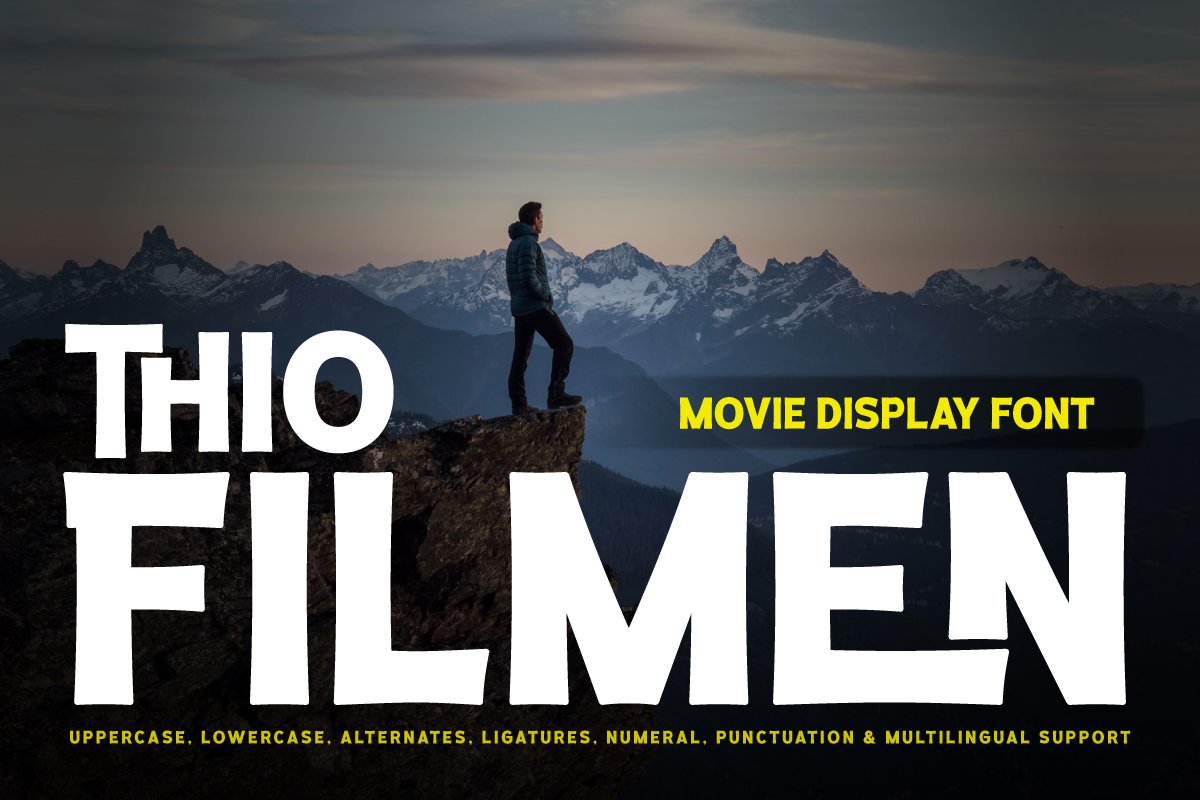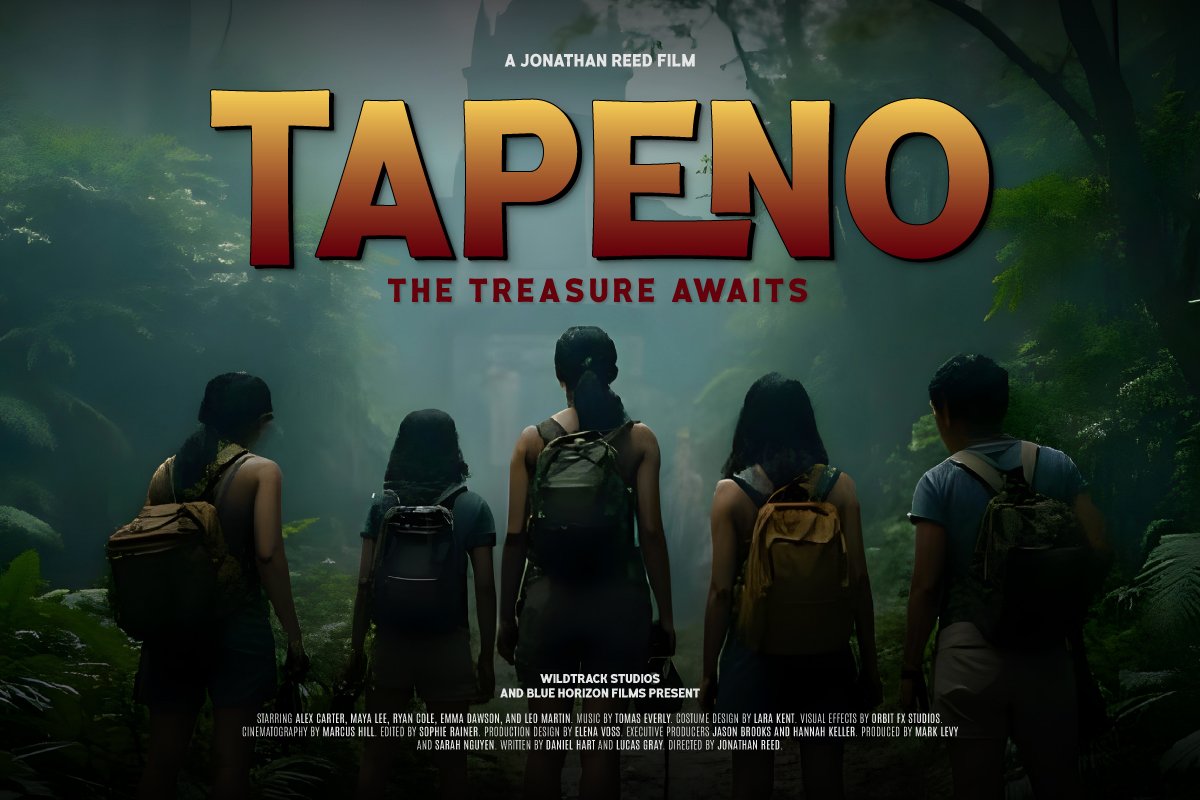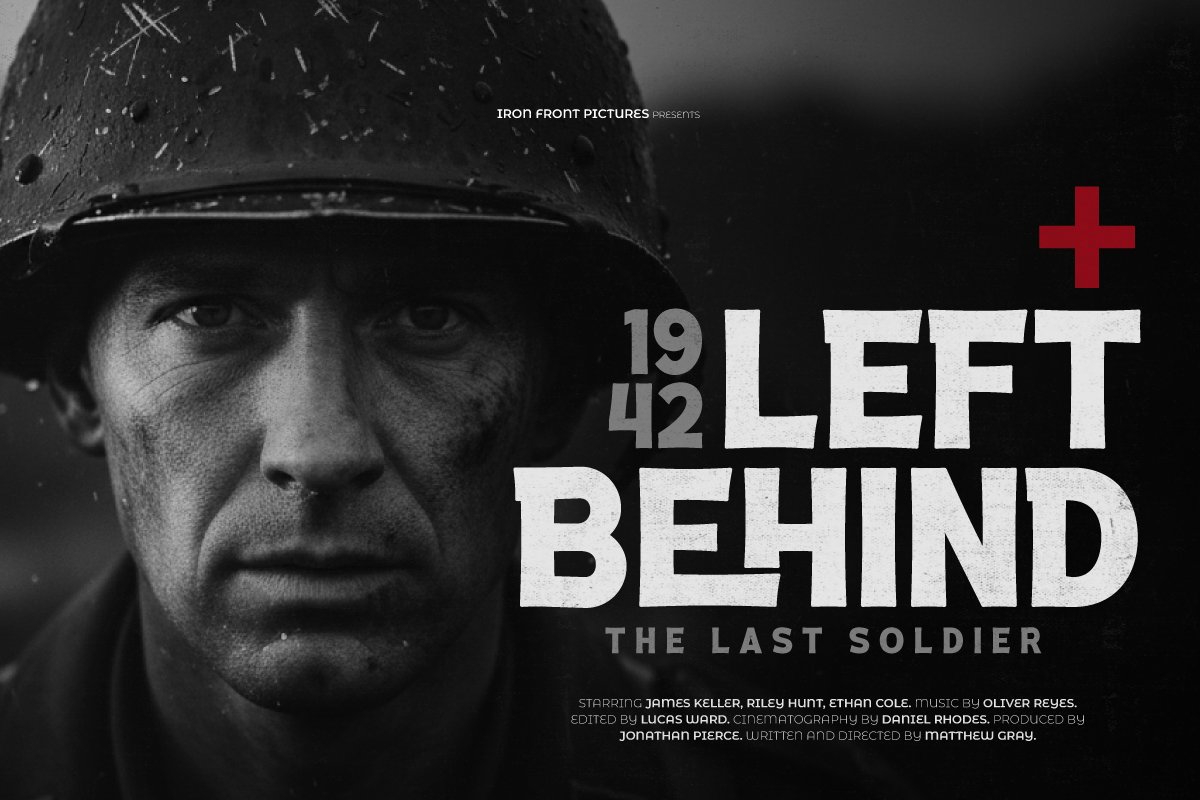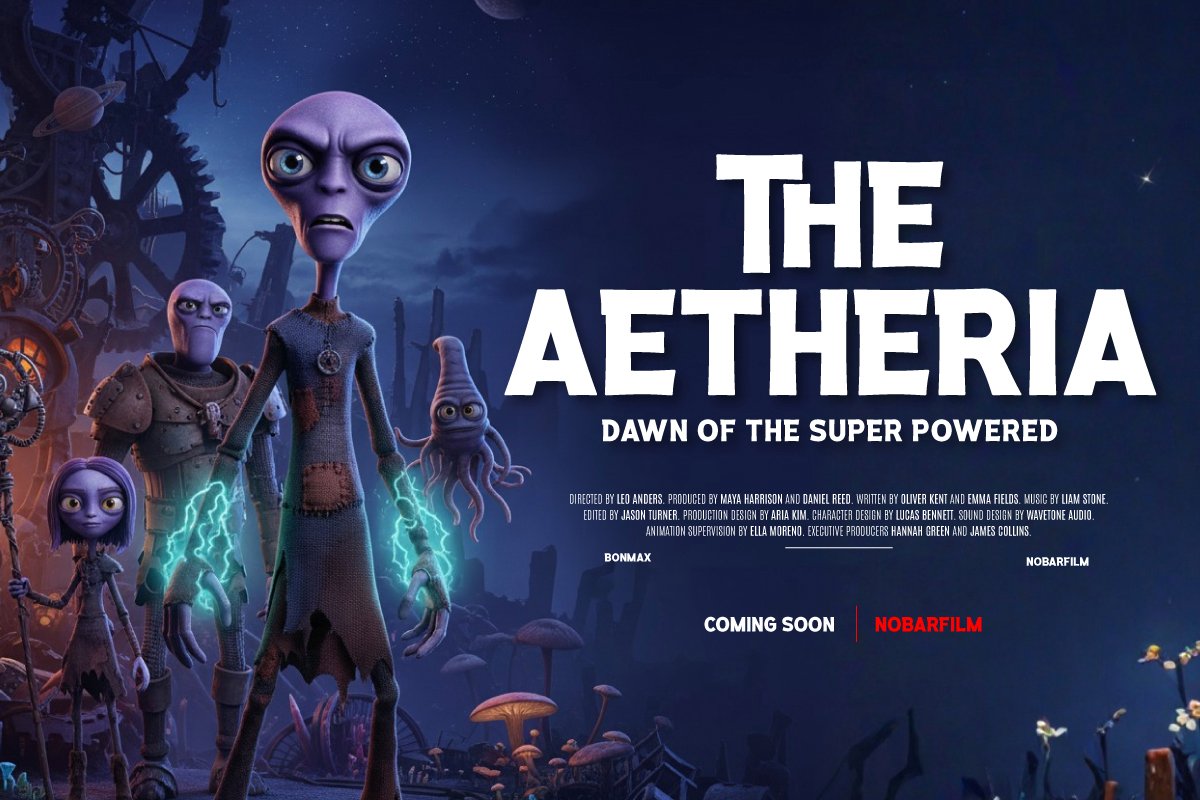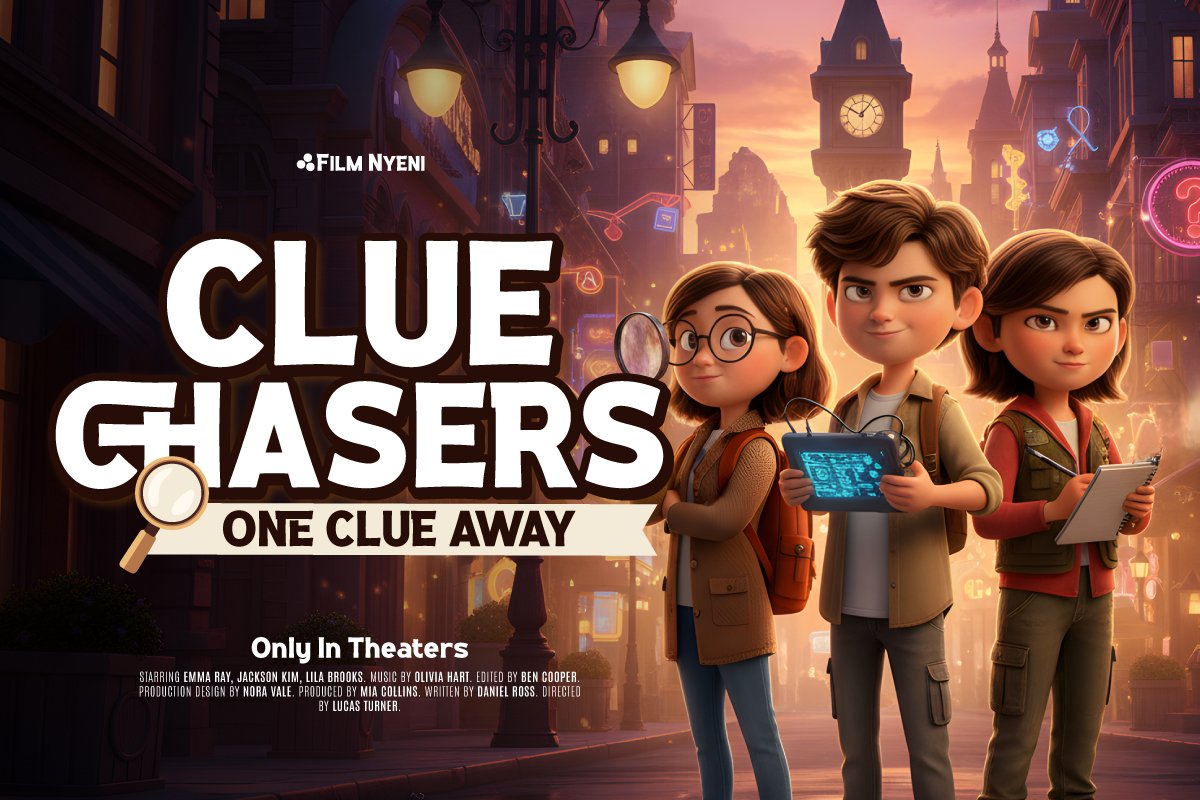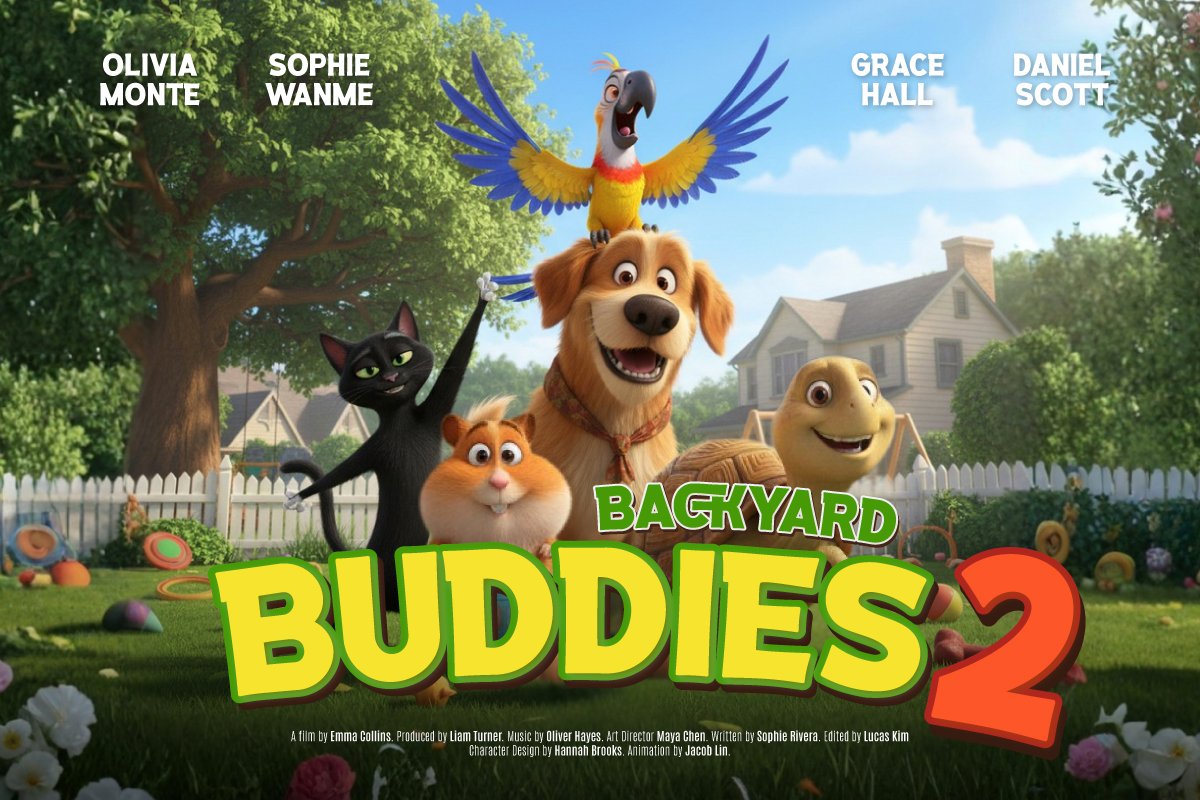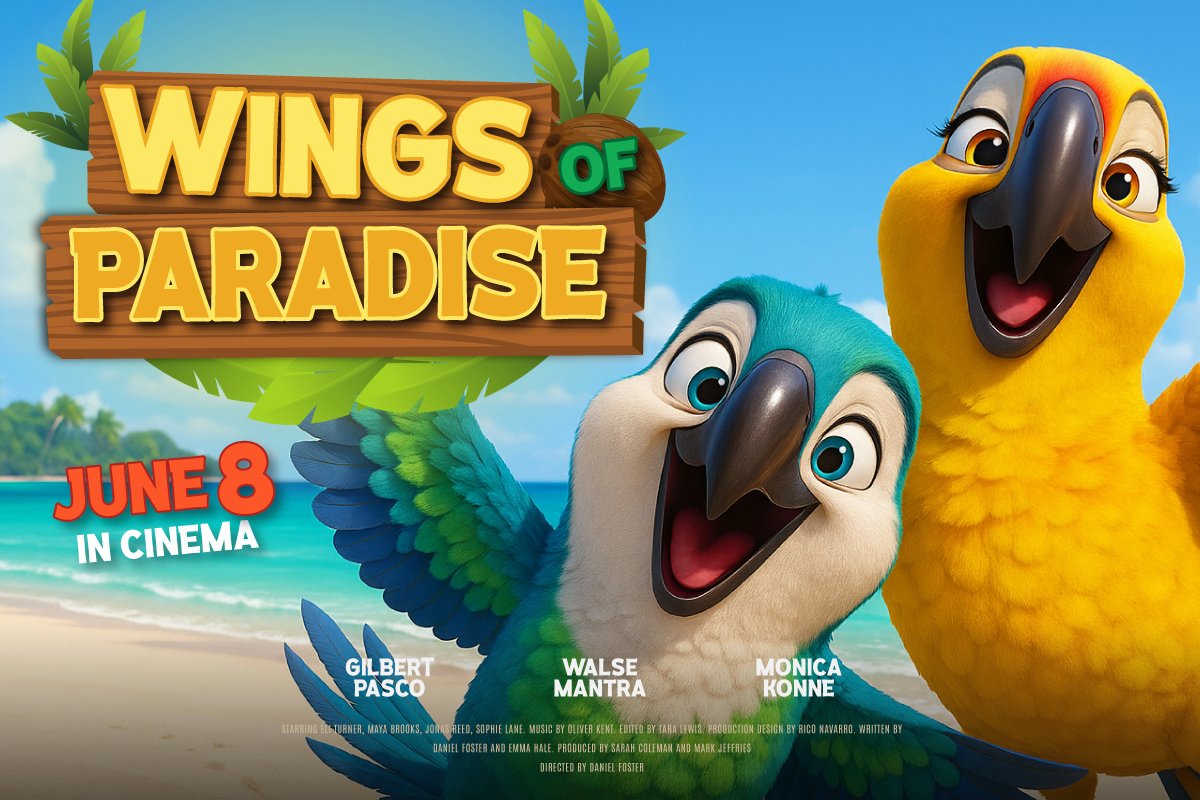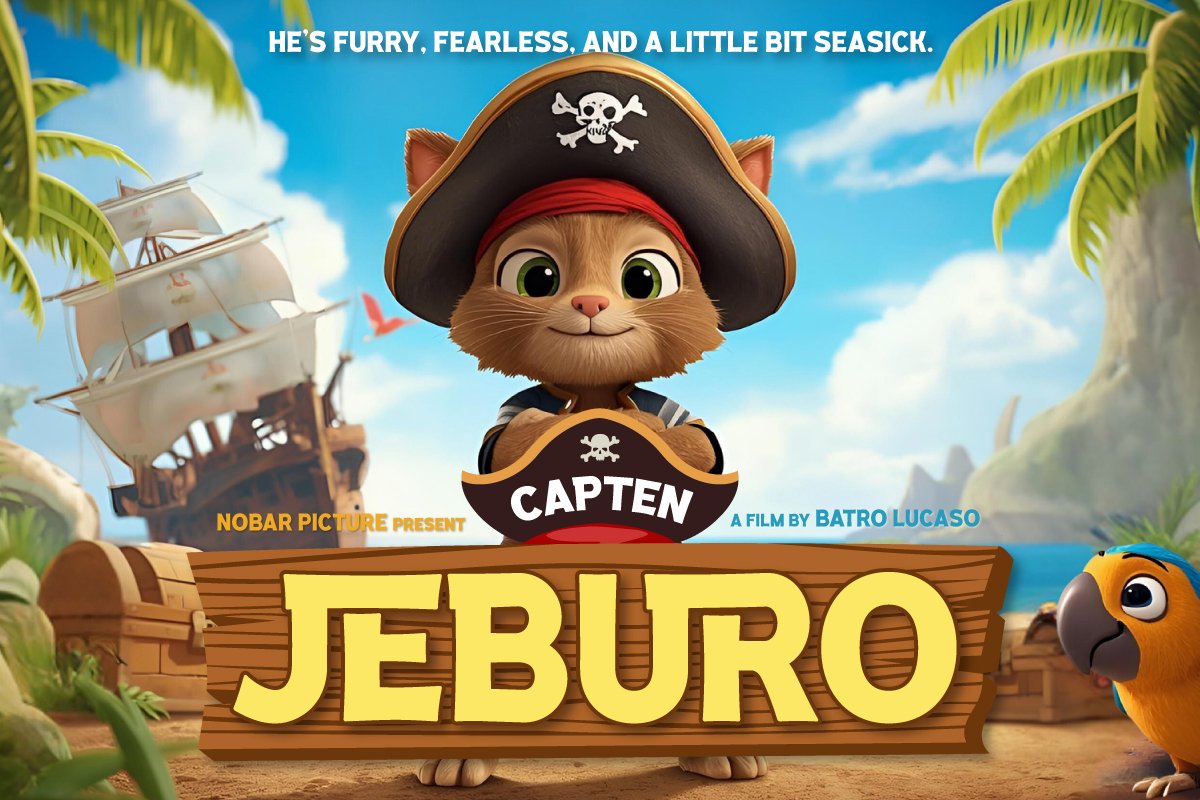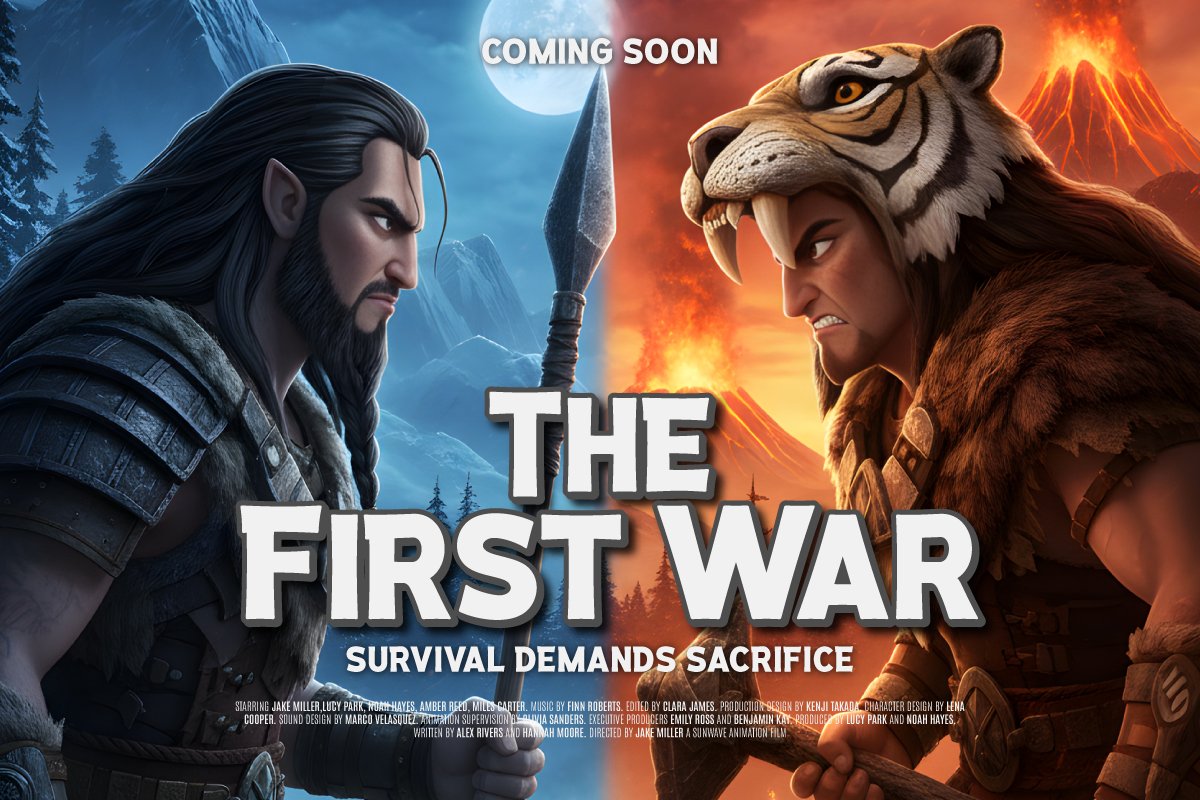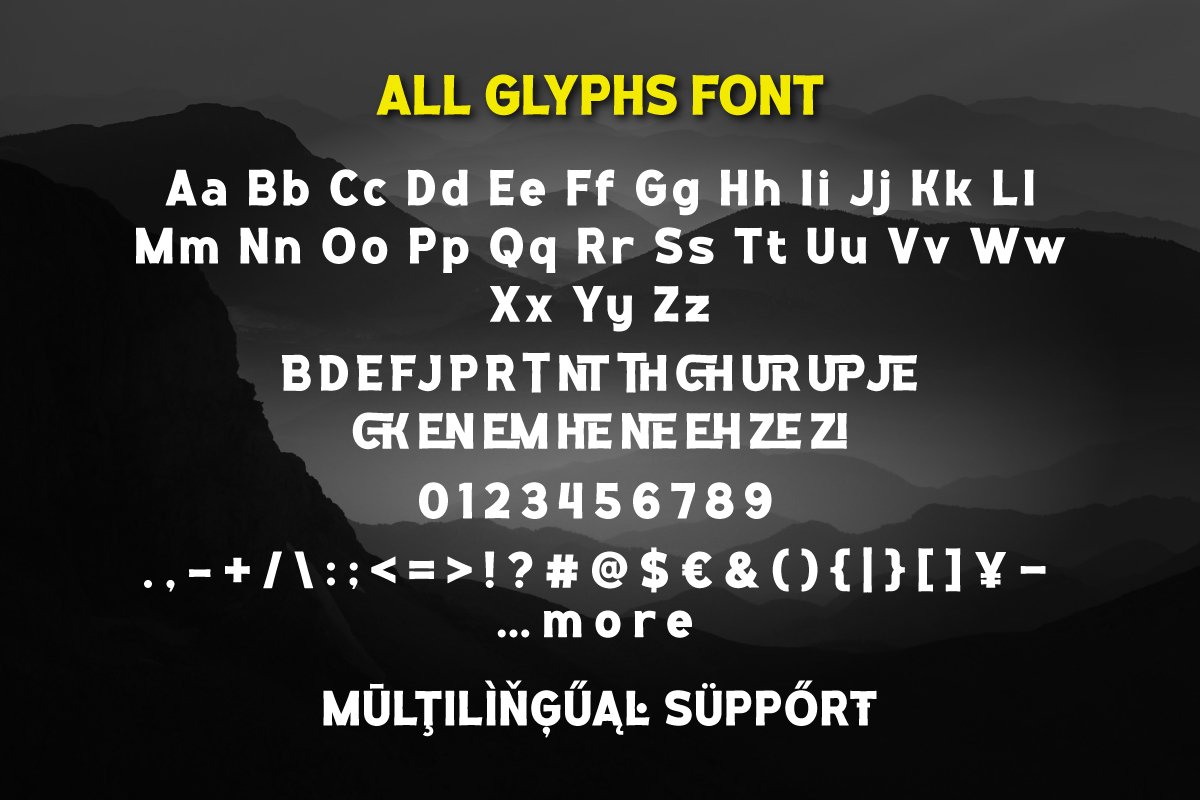
Thio Filmen – Movie Display
Thio Filmen – Movie Display brings bold cinematic energy inspired by the world of modern movie posters and action film titles. Each letter is crafted to project drama and strength thick, expressive, and designed to capture attention instantly. Perfect for movie posters, studio logos, and entertainment branding that demands a heroic and high-energy look.
With alternates, ligatures, and multilingual support, Thio Filmen offers flexibility for diverse creative projects. Its modern yet slightly cartoonish style adds a touch of fun while keeping a professional edge.
Created for designers who want to showcase a cinematic identity, Thio Filmen brings grandeur and personality to every composition. Its bold structure and balanced proportion make every headline feel like an epic movie scene.